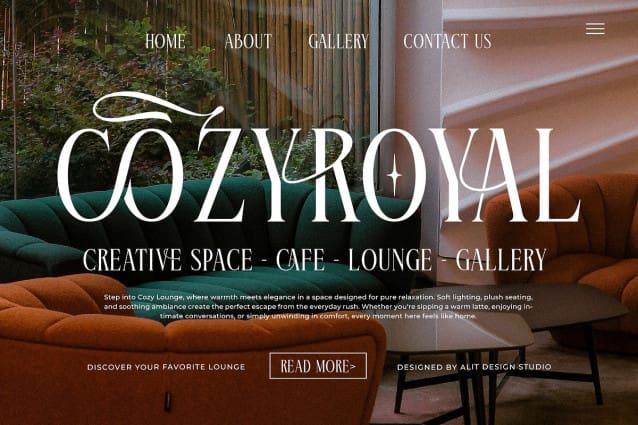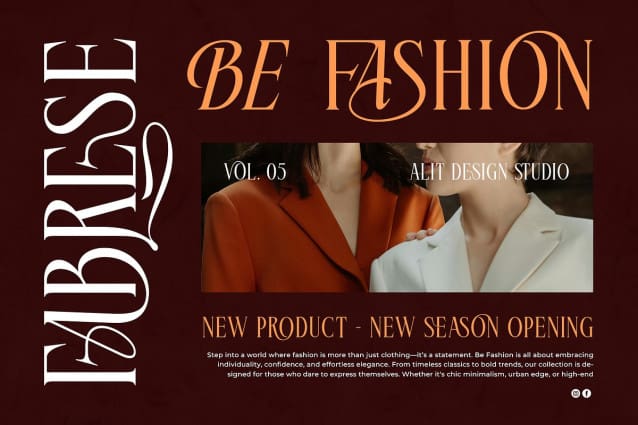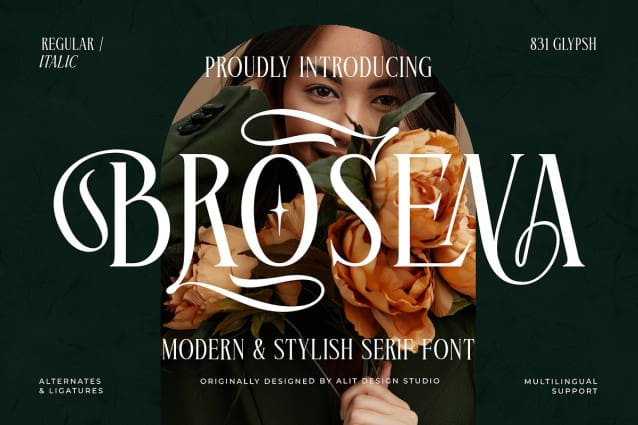
Brosena Font
Brosena Font – A perfect blend of classic elegance and modern design, Brosena Font is a versatile and sophisticated serif font designed to captivate. Whether you’re working on high-end branding, editorial layouts, or creative projects that demand a luxurious touch, Brosena brings unparalleled elegance to the table.
This typeface features two beautifully crafted styles—Regular and Italic—giving you the freedom to mix and match for diverse design needs. Each style is carefully designed with clean lines, subtle contrasts, and soft curves, making Brosena equally suitable for formal applications and creative expressions.
Charming Alternatives & Versatility
What sets Brosena apart are its charming alternative characters, which add unique personality to every project. These alternates provide you with endless opportunities to experiment, ensuring that your designs are both expressive and distinctive. Whether you’re aiming for a minimal and modern look or a decorative and ornate design, Brosena is up to the task.